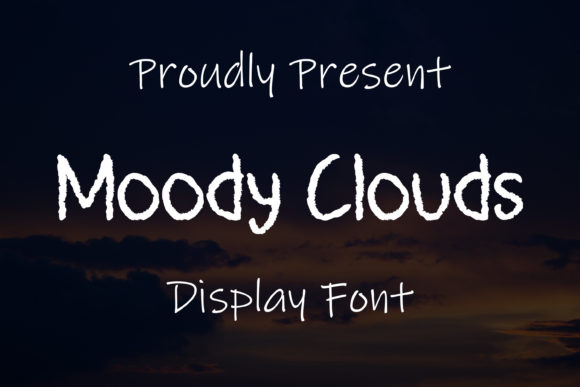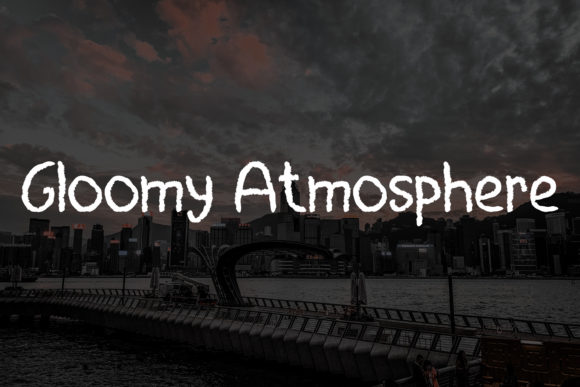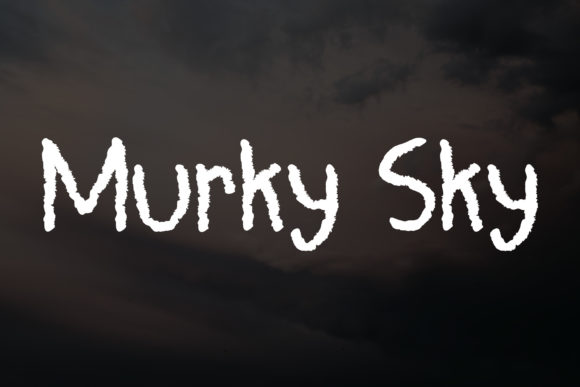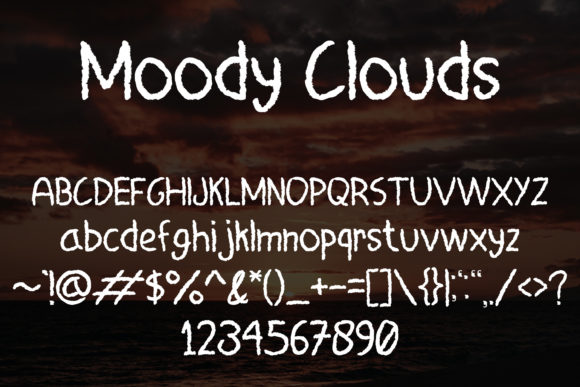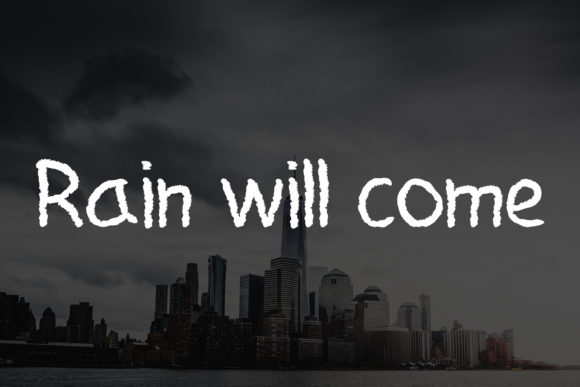
Moody Clouds Font
About Moody Clouds Font
Moody Clouds is a friendly and adaptable script font. Relaxed and casual, this font will easily match a wide range of designs. Have fun with this beautiful font and explore its endless variations.